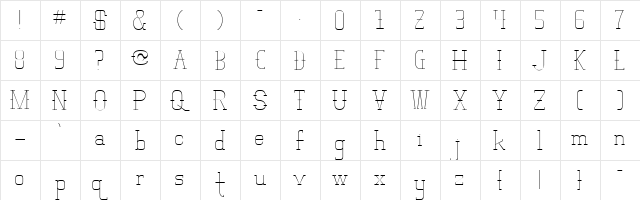
Vloderstone Regular Font Preview
Vloderstone Regular
Vloderstone Regular Font Details
Design Context for Vloderstone Typeface
Vloderstone takes a measured approach to typography — its balanced proportions and neutral character make it a reliable workhorse for both digital and print work.